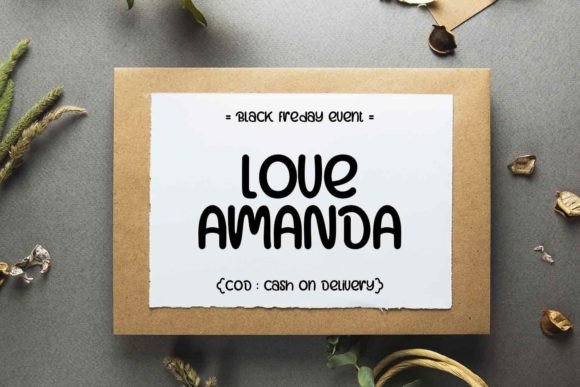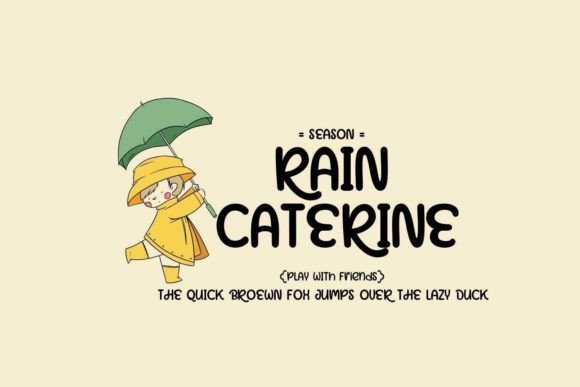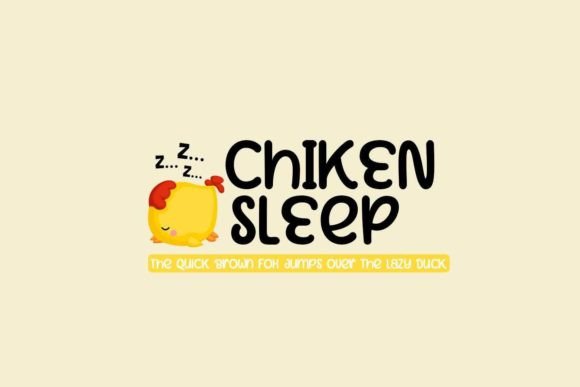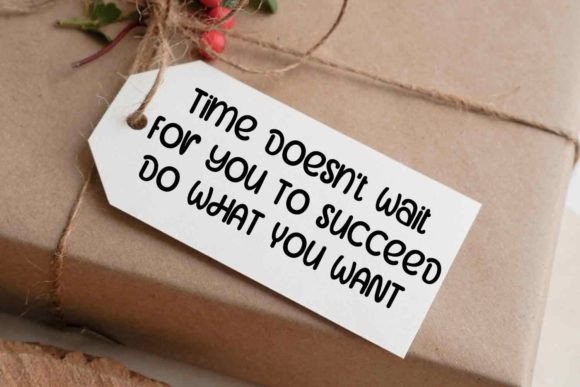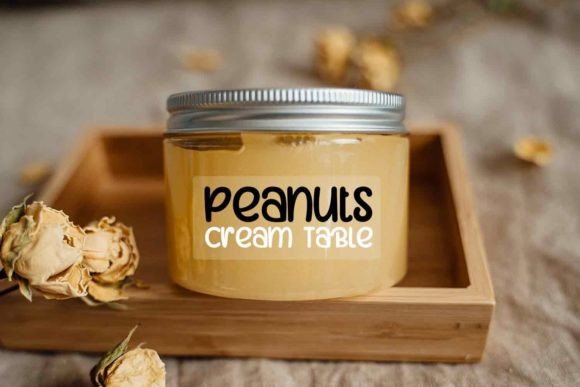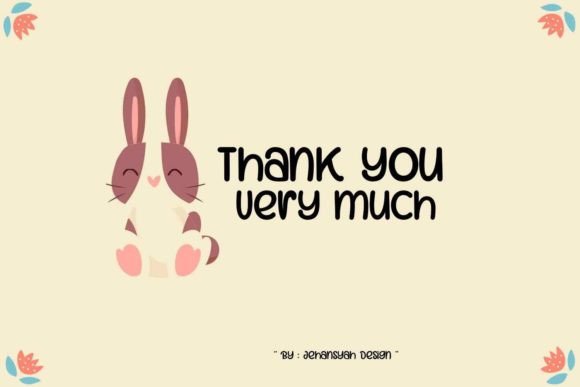
Hearken Font: The Ultimate Choice for Designers and Crafters
In the world of typography, fonts play a crucial role in conveying emotions and setting the tone for various designs. If you’re a designer or crafter looking for a font that exudes a cheerful and fun vibe, look no further than Hearken Font. This display font has gained popularity for its cute and simple appearance, making it perfect for a wide range of design projects.
What Makes Hearken Font Special?
Hearken Font boasts a unique and special charm that sets it apart from other fonts. Its simplicity is one of its standout features, making it easy to read and understand. However, don’t let its simplicity fool you – this font packs a punch when it comes to adding a touch of personality to your designs. Whether you’re working on an invitation card, a greeting, or a brand logo, Hearken Font is sure to make your project stand out.
The Versatility of Hearken Font
One of the best things about Hearken Font is its versatility. This font can be used for a wide range of design projects, including:
- Invitation cards: Add a personal touch to your invitations with Hearken Font’s playful and cheerful vibe.
- Greetings: Make your greetings more special with this font’s unique and fun appearance.
- Brands and logos: Give your brand a personality with Hearken Font’s cute and simple design.
- Children’s books: Create engaging and interactive stories for kids with this font’s playful and colorful feel.
- Coloring crafts: Add a touch of fun and creativity to your coloring crafts with Hearken Font’s whimsical design.
Why Designers and Crafters Love Hearken Font
Designers and crafters alike love Hearken Font for its ability to add a touch of personality to their projects. This font is perfect for those who want to create designs that are fun, playful, and engaging. With Hearken Font, you can:
- Create eye-catching designs that grab attention.
- Add a personal touch to your projects.
- Convey emotions and set the tone for your designs.
- Stand out from the crowd with a unique and special font.
Tips for Using Hearken Font
To get the most out of Hearken Font, here are some tips to keep in mind:
- Use it for headlines and titles to add a touch of personality to your designs.
- Pair it with other fonts to create a unique and interesting contrast.
- Use it consistently throughout your design to create a cohesive look.
In conclusion, Hearken Font is a versatile and fun display font that’s perfect for designers and crafters. Its cute and simple appearance makes it suitable for a wide range of design projects, from invitation cards to children’s books. With its ability to add a touch of personality to your designs, Hearken Font is sure to become a favorite in your font collection. So why not give it a try and see how it can elevate your designs to the next level?